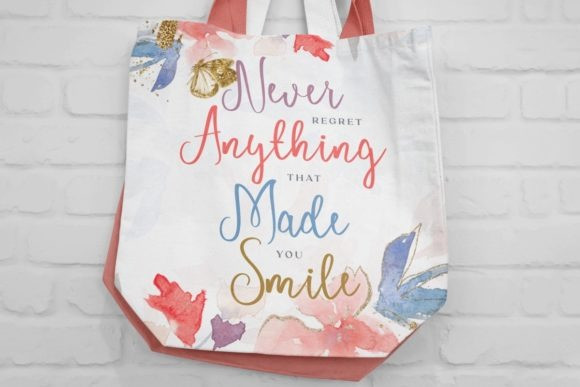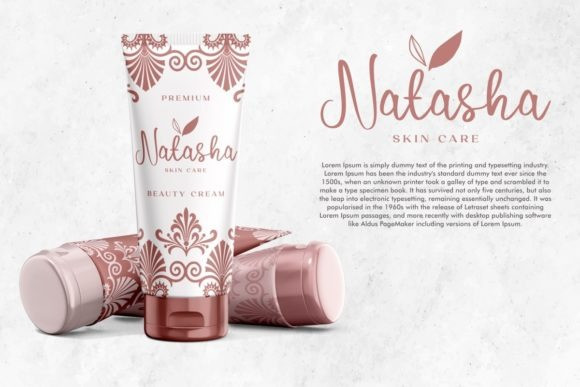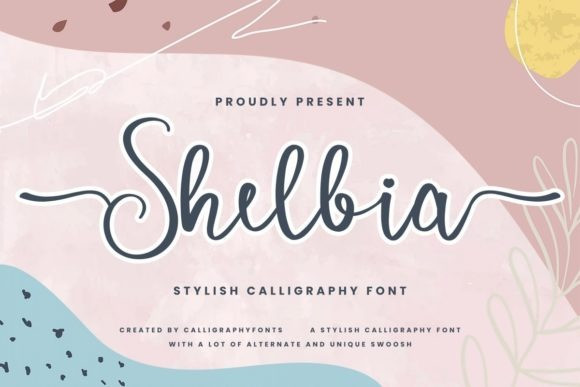
Shelbia Font
Shelbia Font is a stylish calligraphy font that is suitable for brand fashion, headline, invitation, logos, packaging, quote, signature, wedding and various other needs. This font is classy, simple, but still authentic. Shelbia is PUA encoded which means you can access all of the glyphs and swashes with ease!